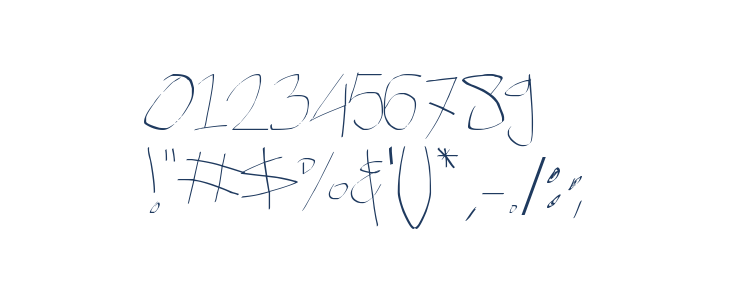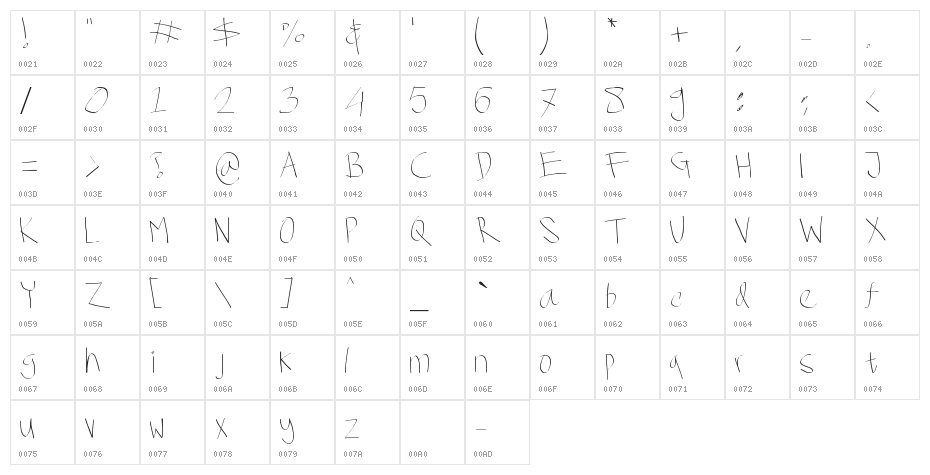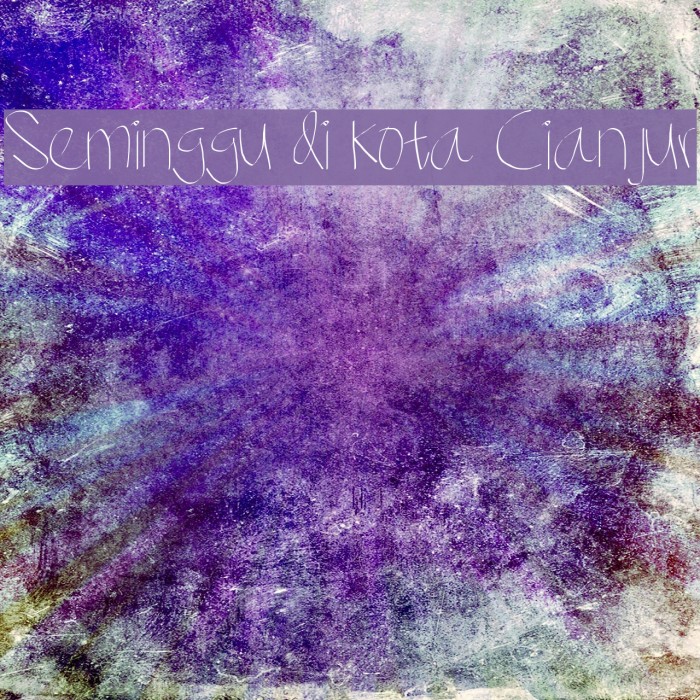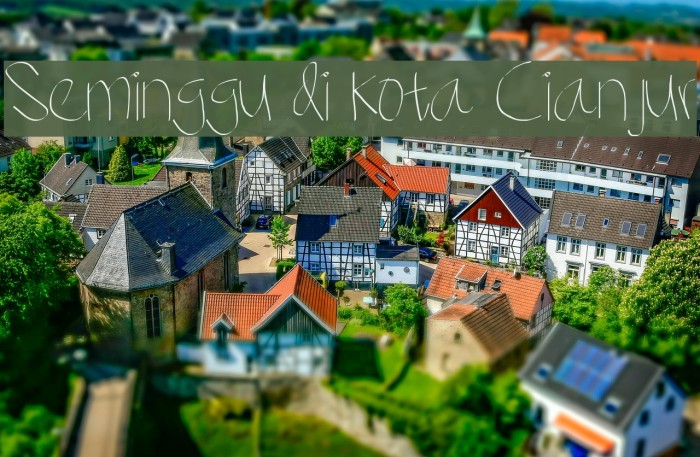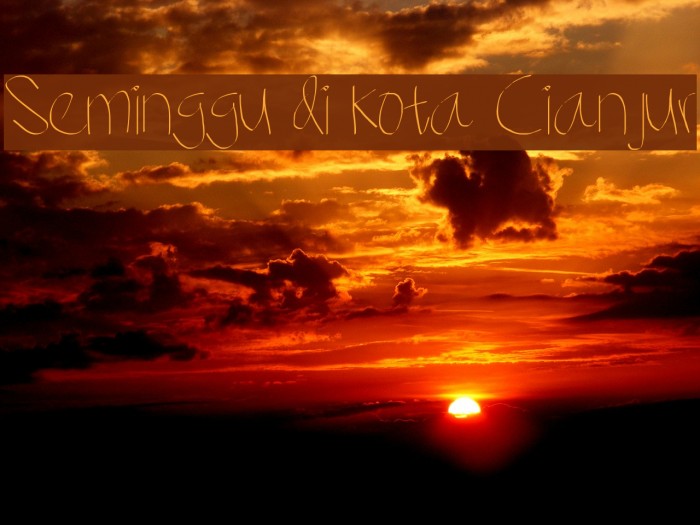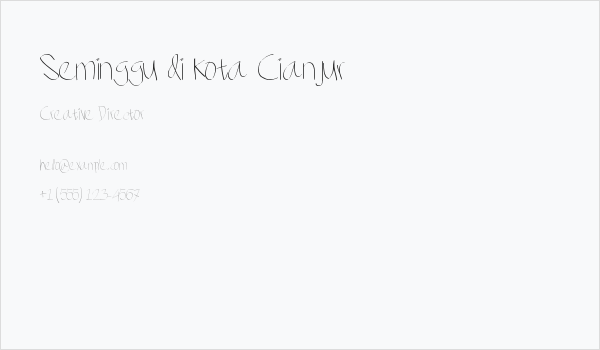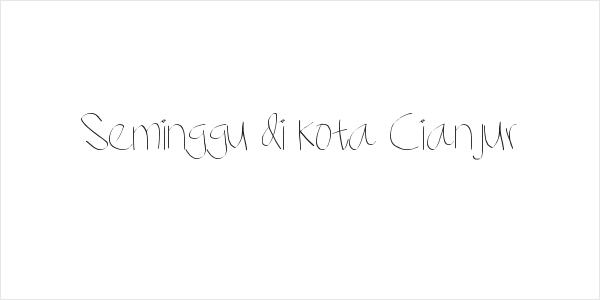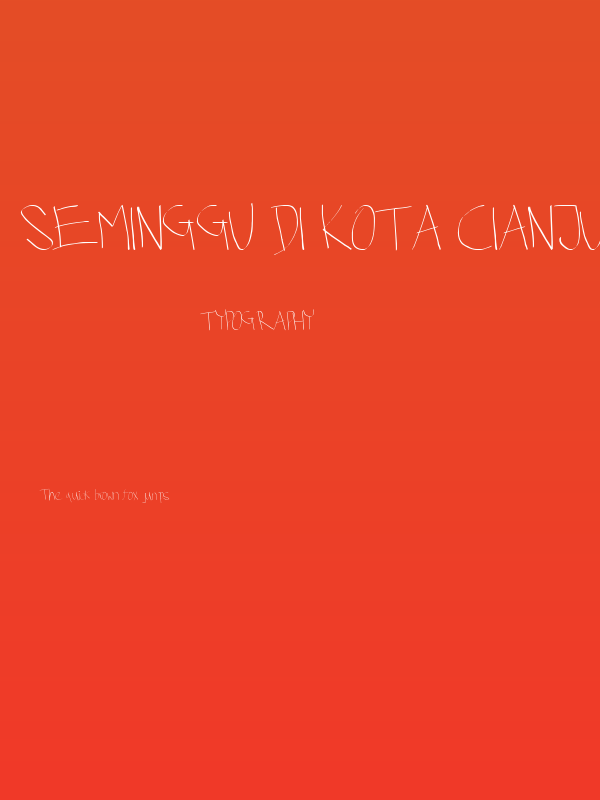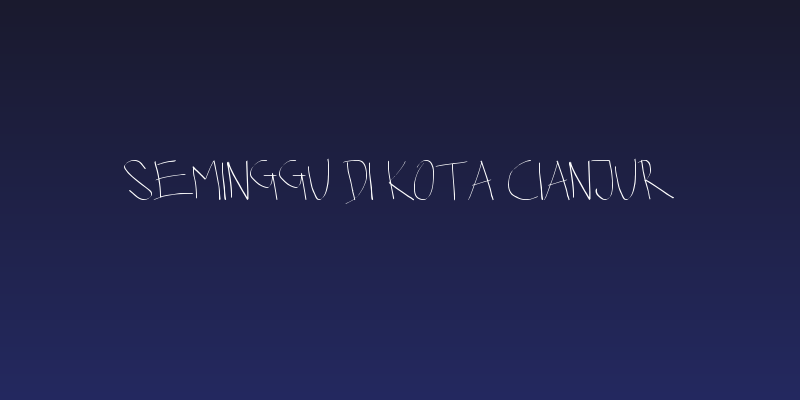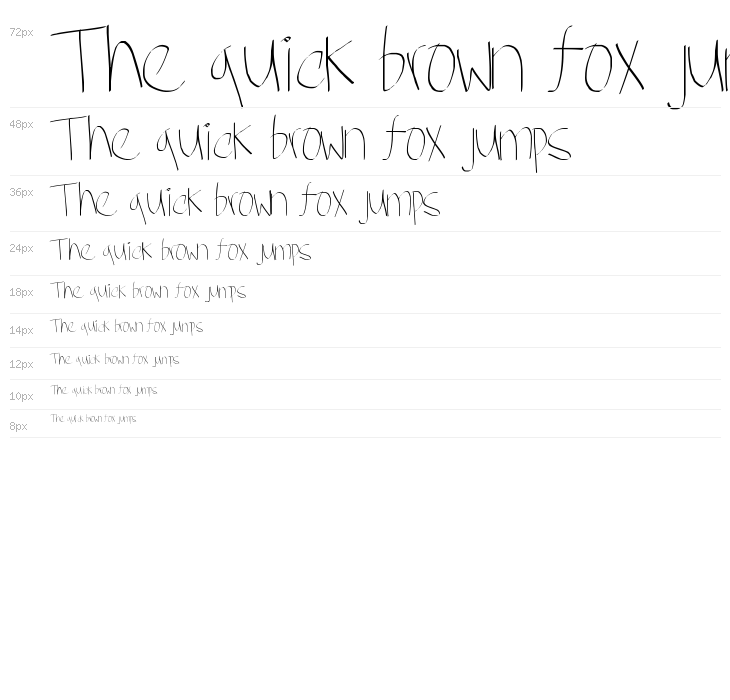
Seminggu di kota Cianjur Font
Seminggu di kota Cianjur Description
This font features a playful and casual handwritten style, characterized by its irregular and organic strokes. The letters exhibit a natural flow, with varying line thickness that adds a dynamic and lively feel. The uppercase and lowercase letters maintain a consistent style, with a slightly slanted orientation that enhances its informal appearance. The numerals and special characters are crafted with the same whimsical touch, making them blend seamlessly with the alphabet. This font's unique charm lies in its imperfect lines and spontaneous character, making it ideal for projects that require a personal and approachable touch.
| Proposed Projects | Ideal for greeting cards, personal blogs, children's books, and creative branding projects. |